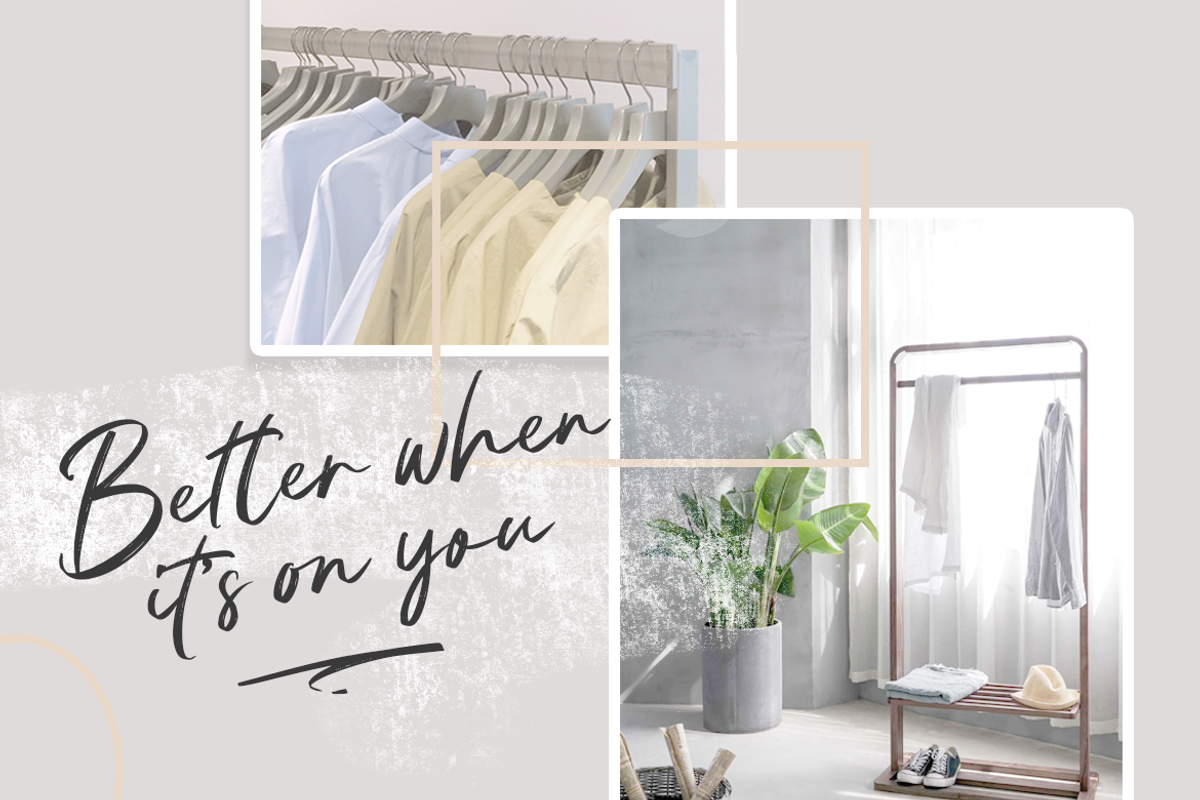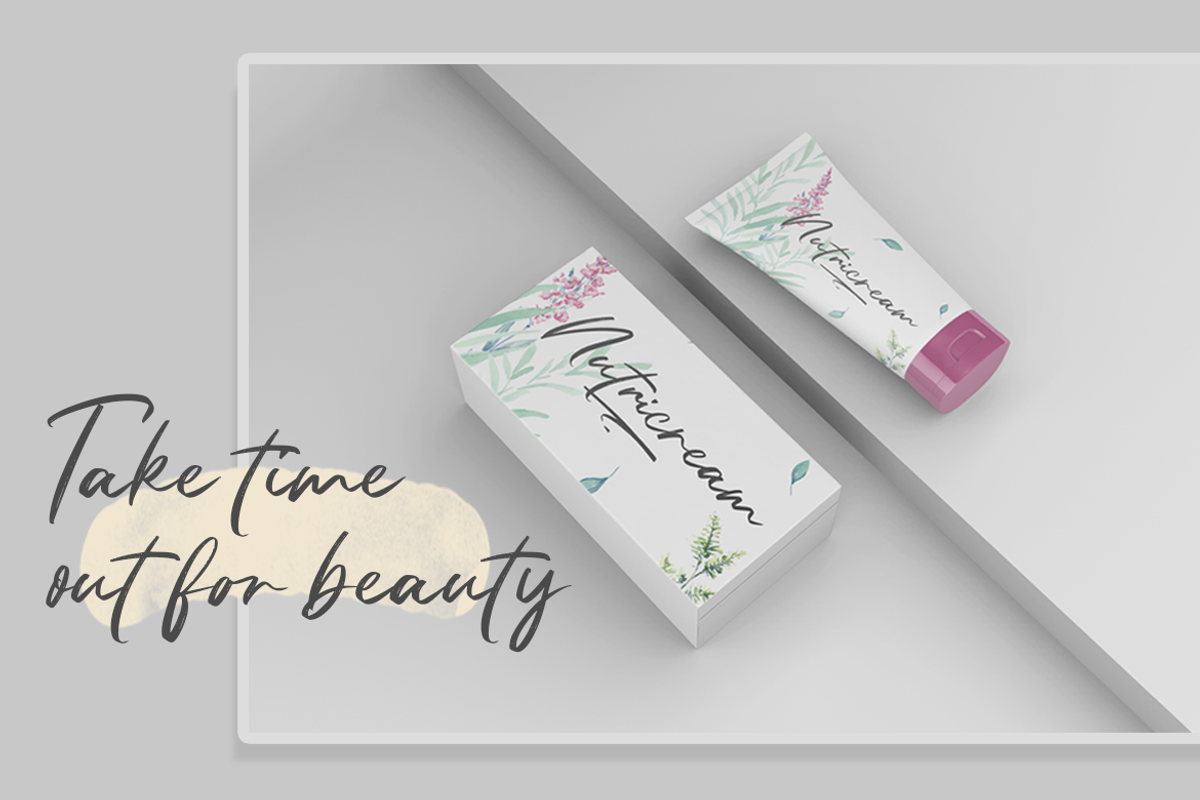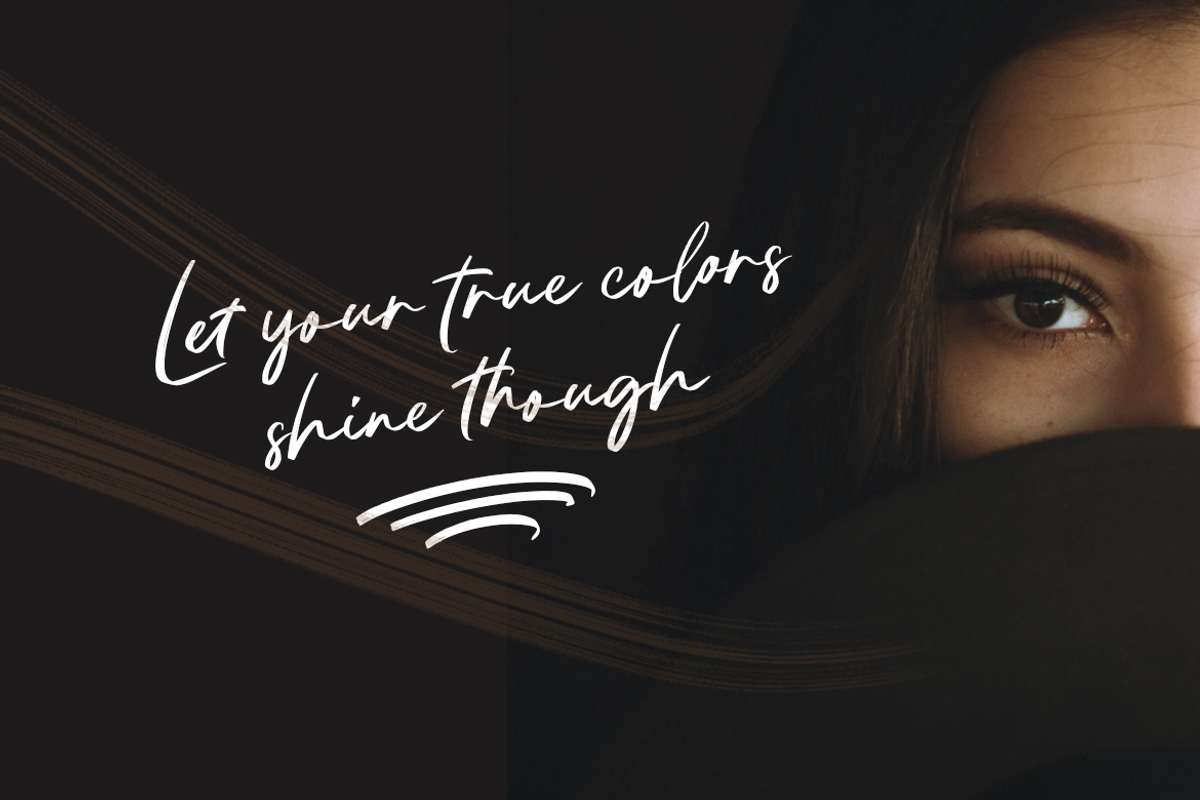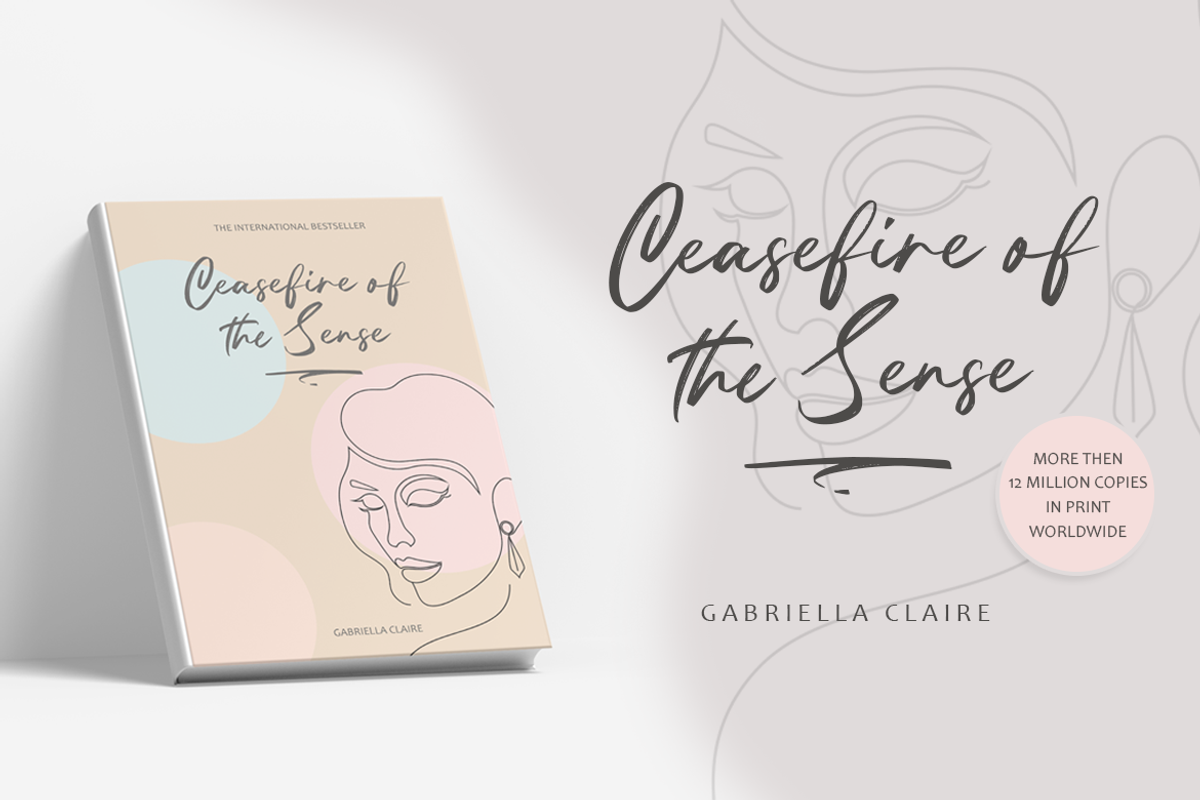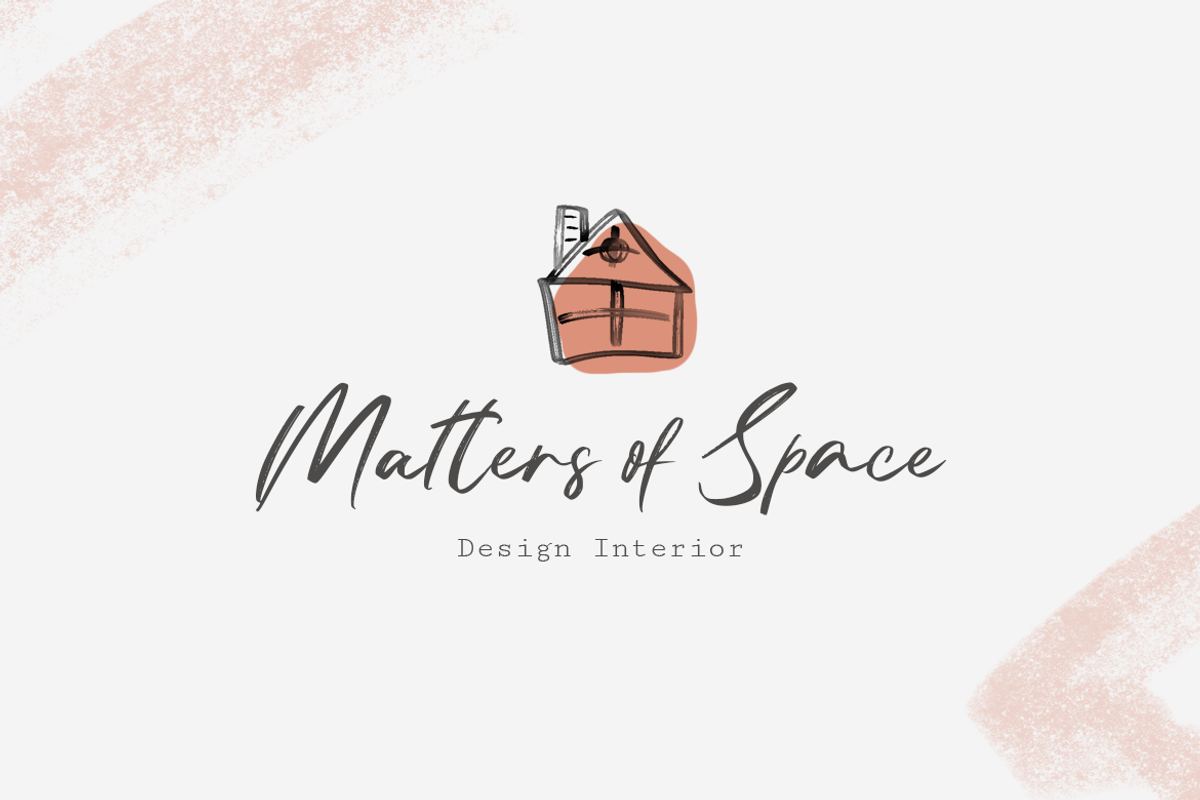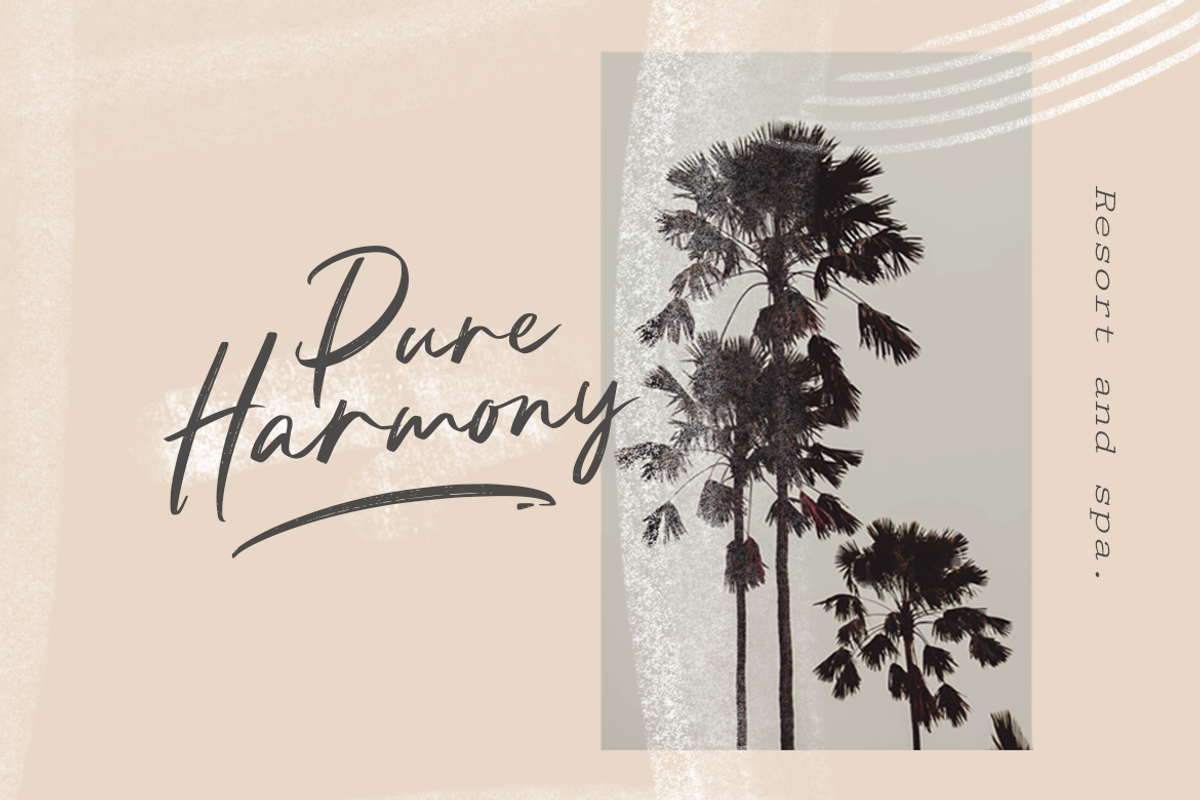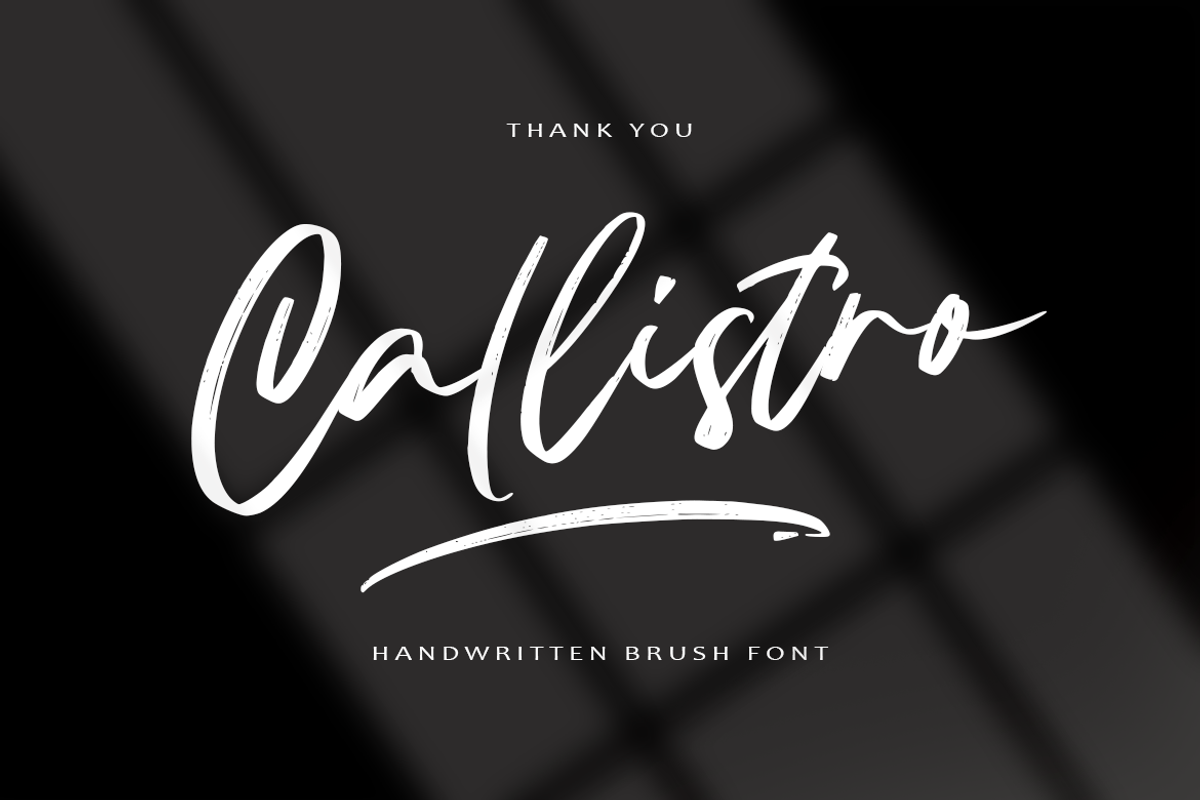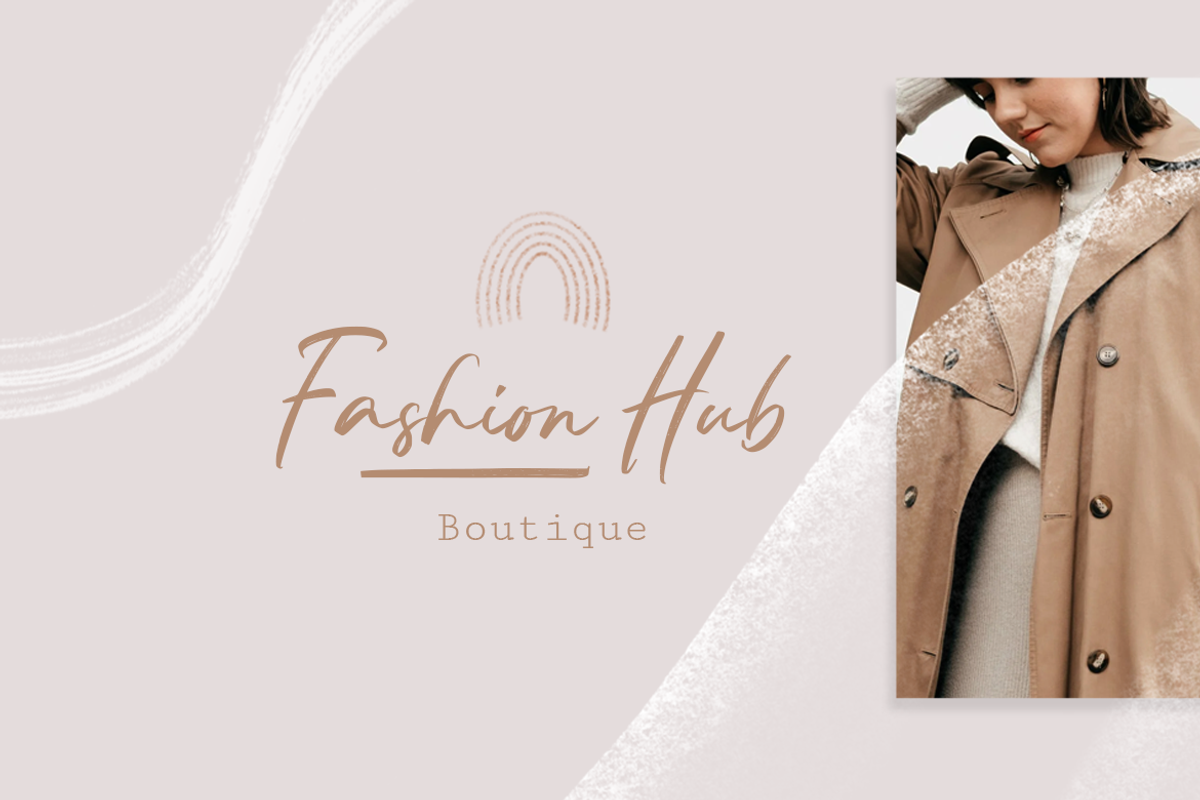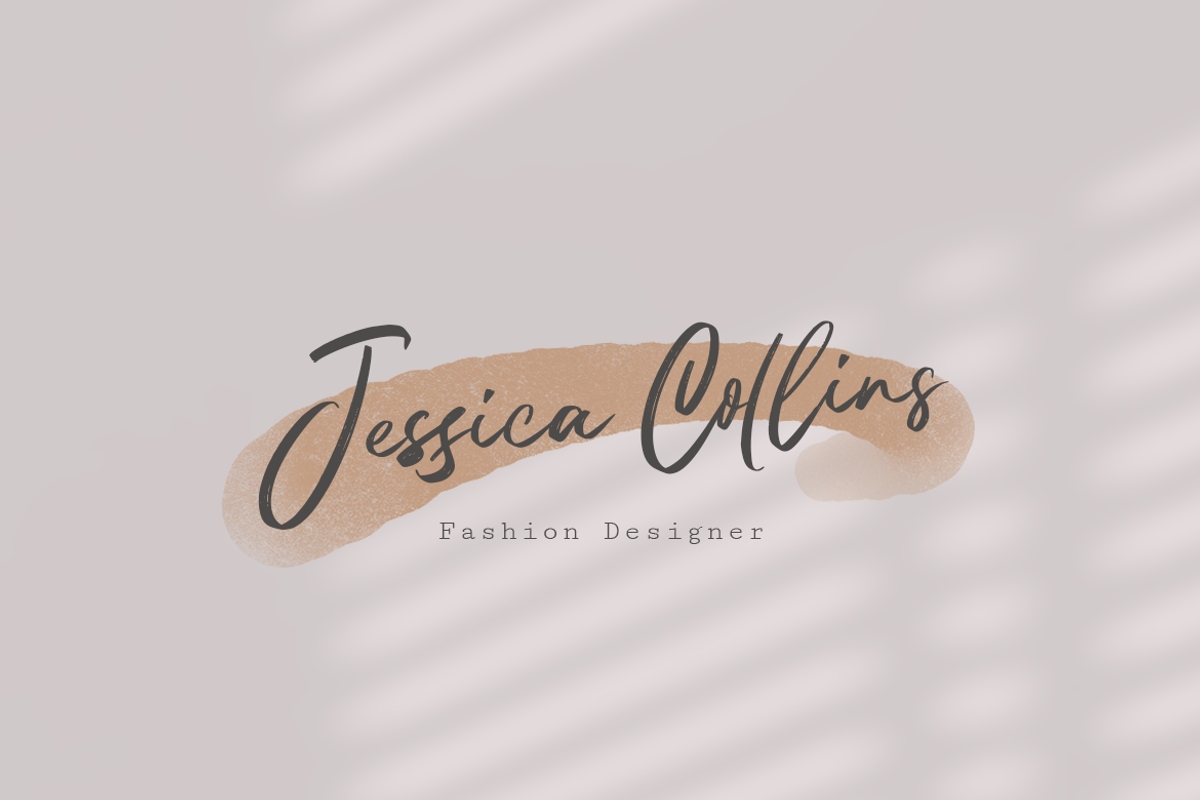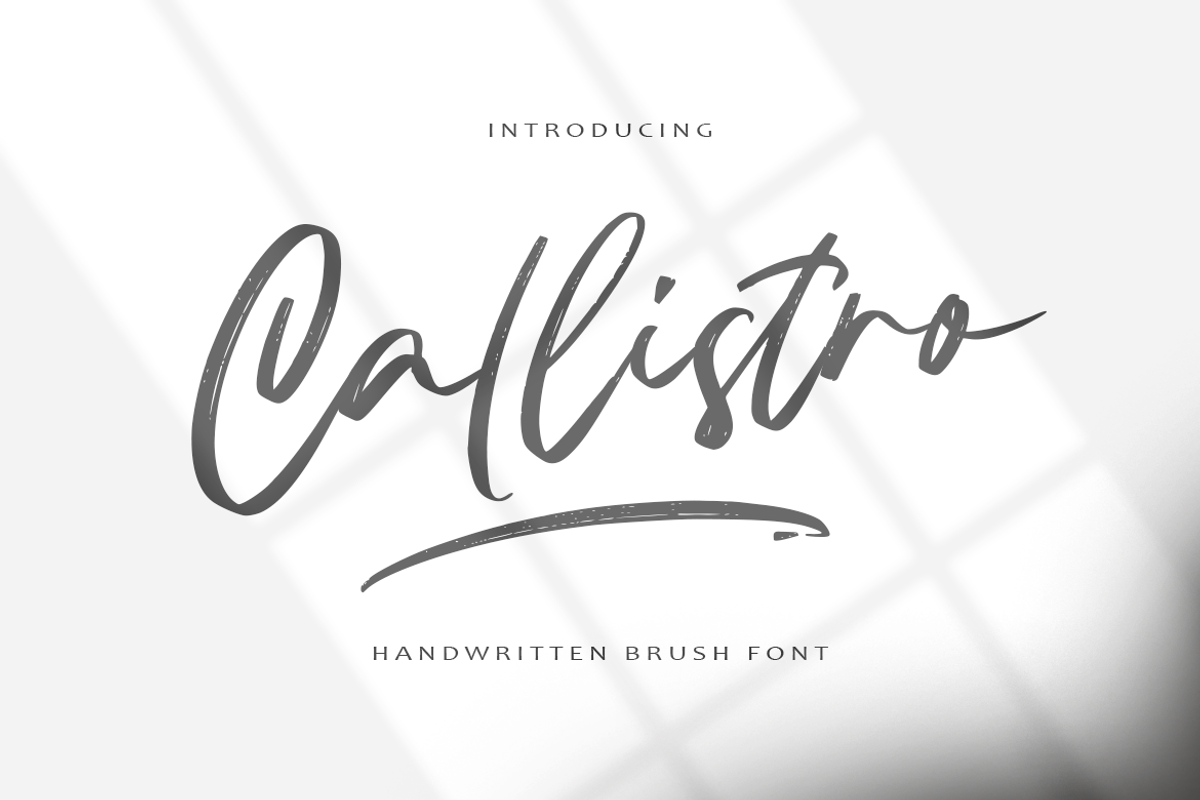
Callistro || BRUSH FONT
Give your designs an authentic handcrafted feel. "Callistro" is perfectly suited to signature, stationery, logo, typography quotes, magazine or book cover, website header, clothing, branding, packaging design and more. A handwritten script font containing upper and lowercase characters, numerals, a large range of punctuation, International language, ligatures, stylistic alternate and Swashes.
Callistro Regular
Callistro Swashes